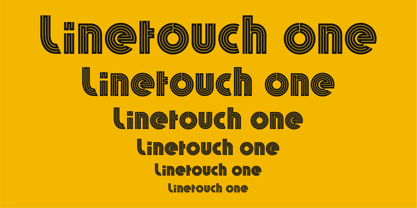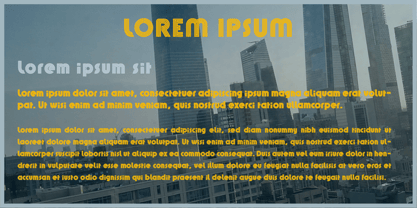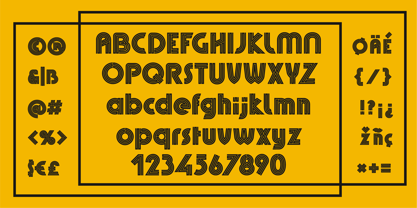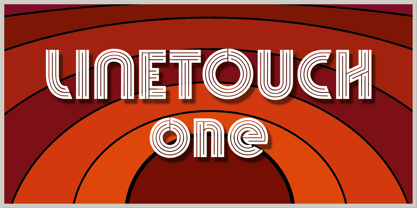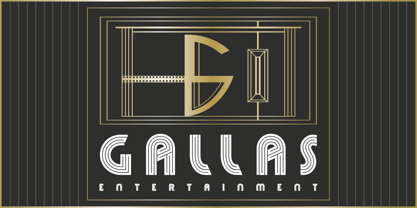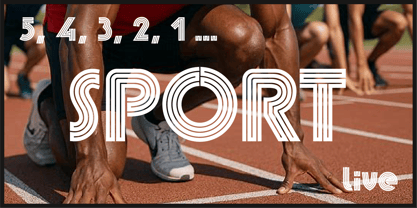
Linetouch One
Linetouch One is a typeface composed of glyphs designed in a single four-line stroke, inspired by the Art Deco style. It is particularly well-suited for logos and titles, poster and label design, as well as for personalizing t-shirts and other promotional items. Its uppercase and lowercase characters, with or without accents, also allow for its use in short texts.